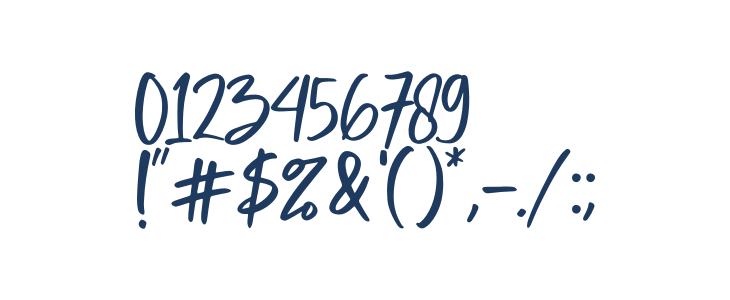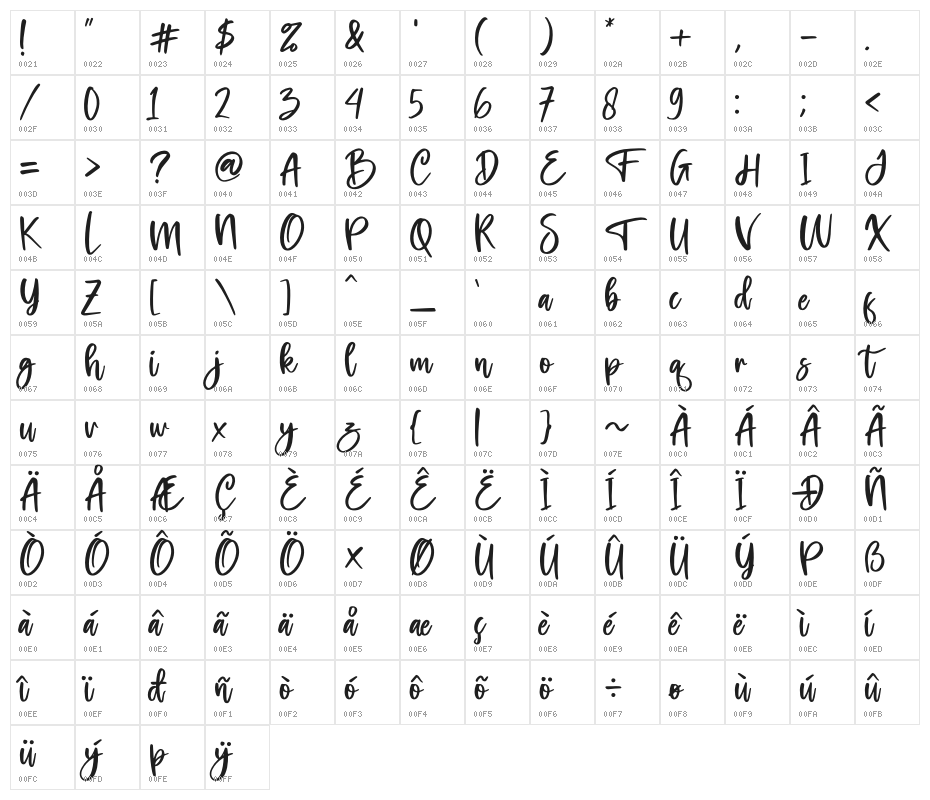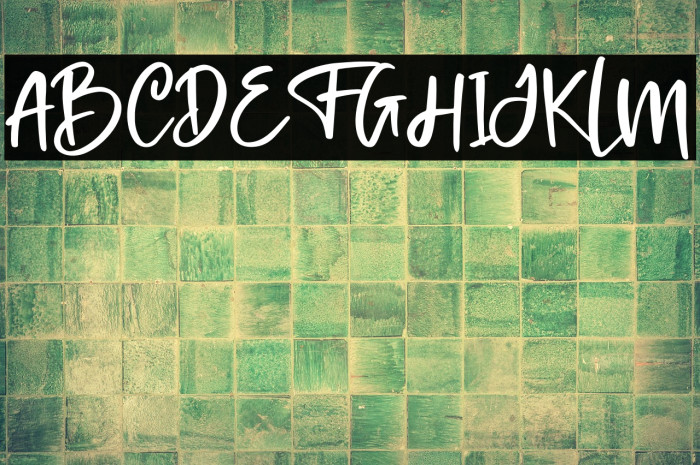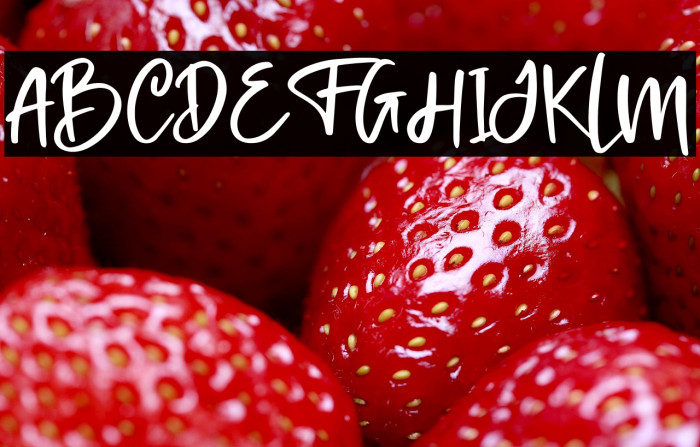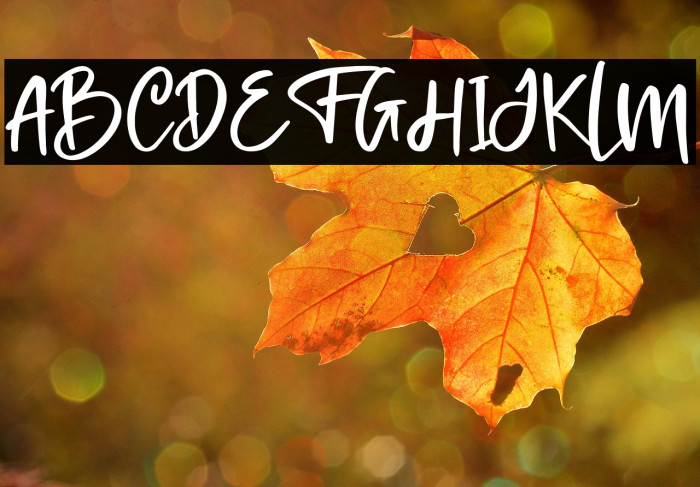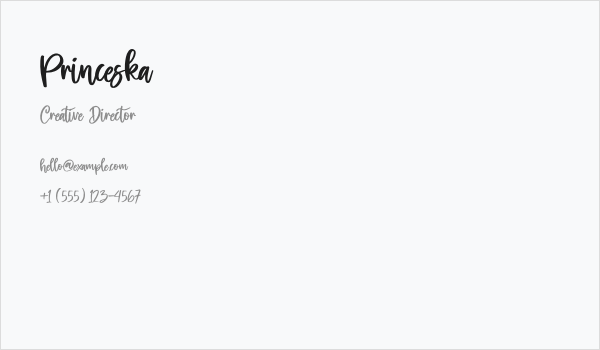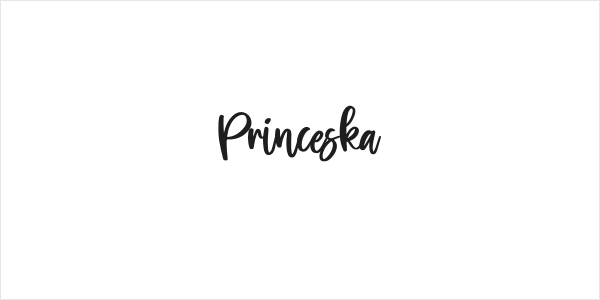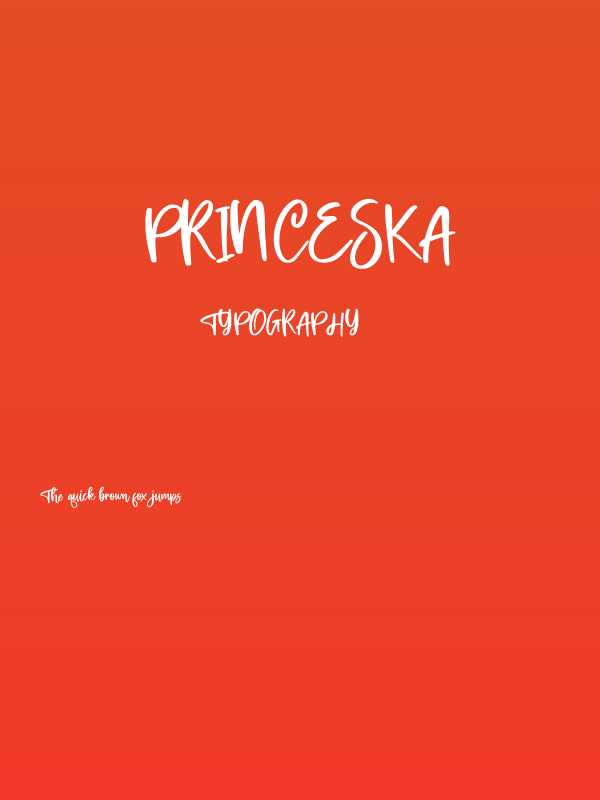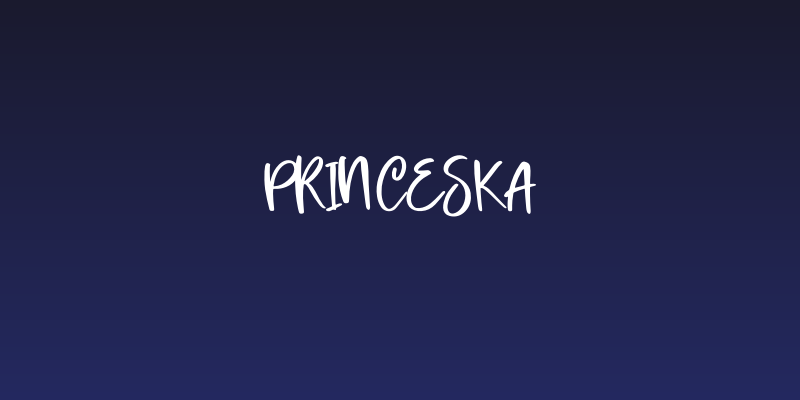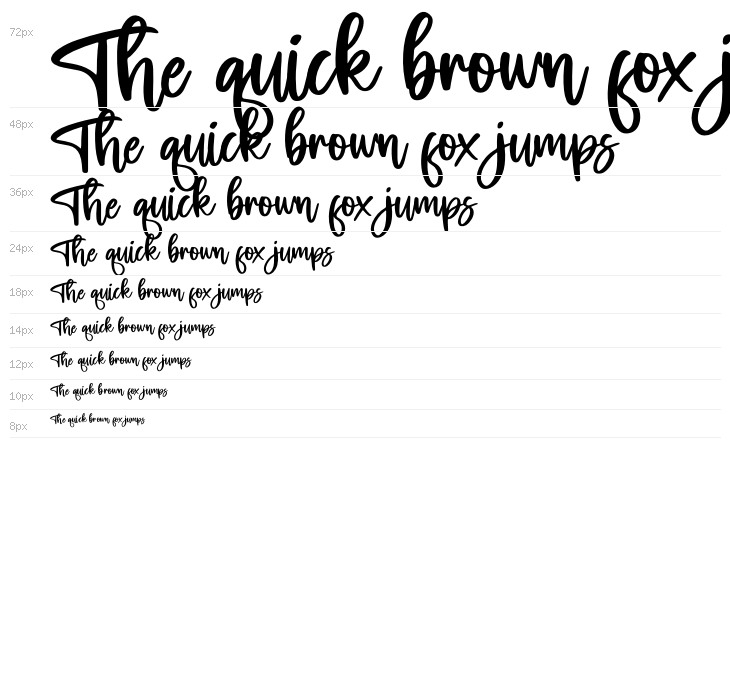
Princeska Font
Princeska Description
This font exudes a lively and energetic vibe with its bold, flowing script style. The letters are interconnected, creating a sense of movement and continuity. The uppercase characters are tall and elegant, while the lowercase letters maintain a playful and casual appearance. Numbers and special characters are consistent with the overall style, adding to the font's cohesive look. The strokes are thick, providing a strong visual impact, and the overall design is reminiscent of modern calligraphy with a touch of whimsy.